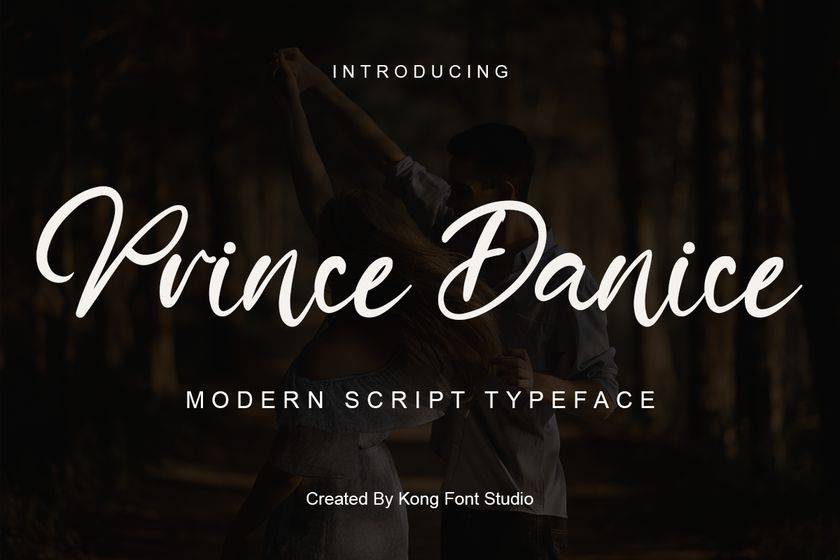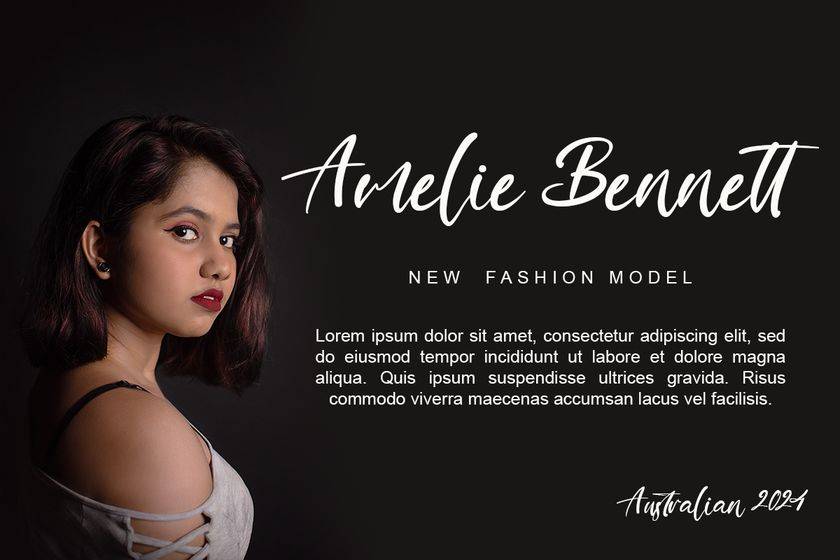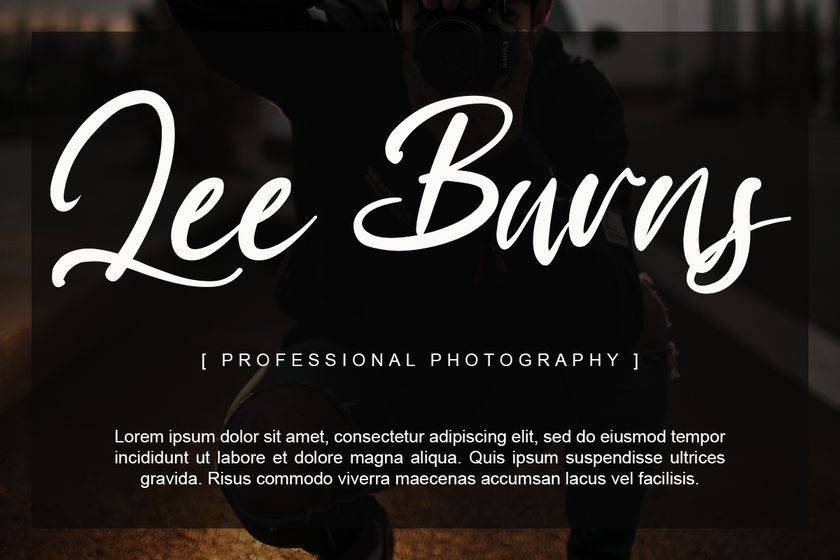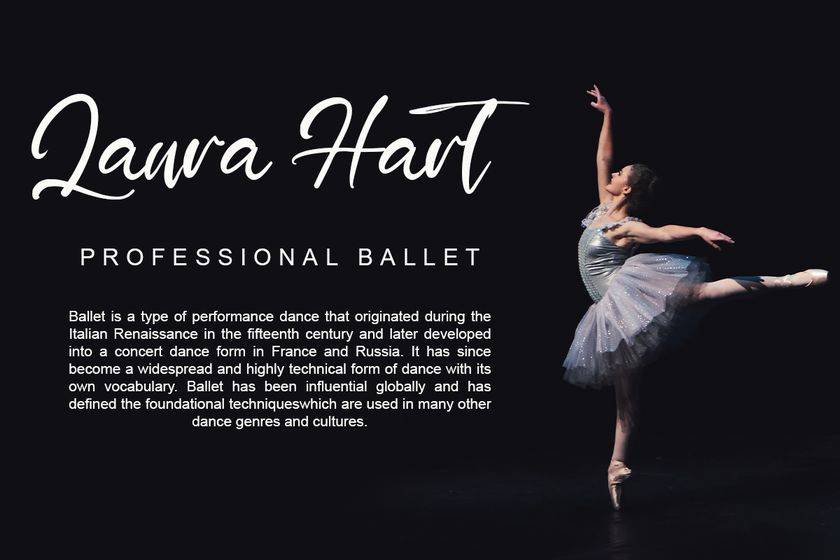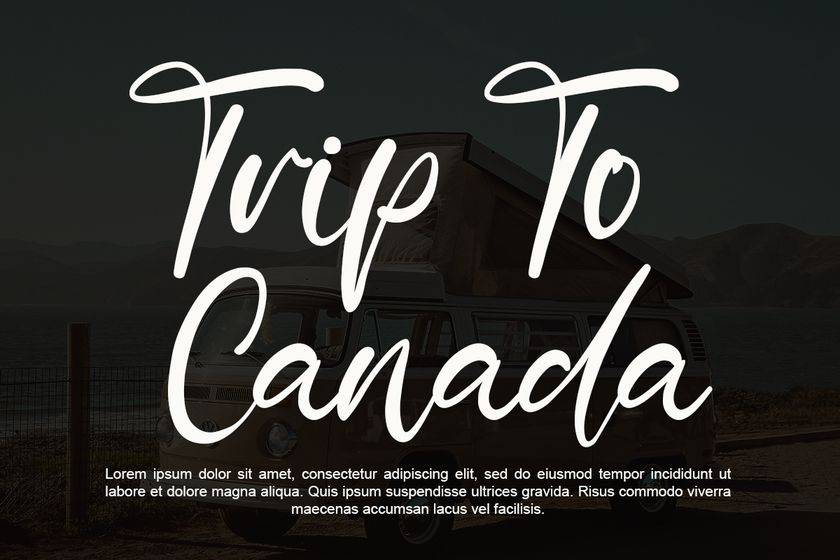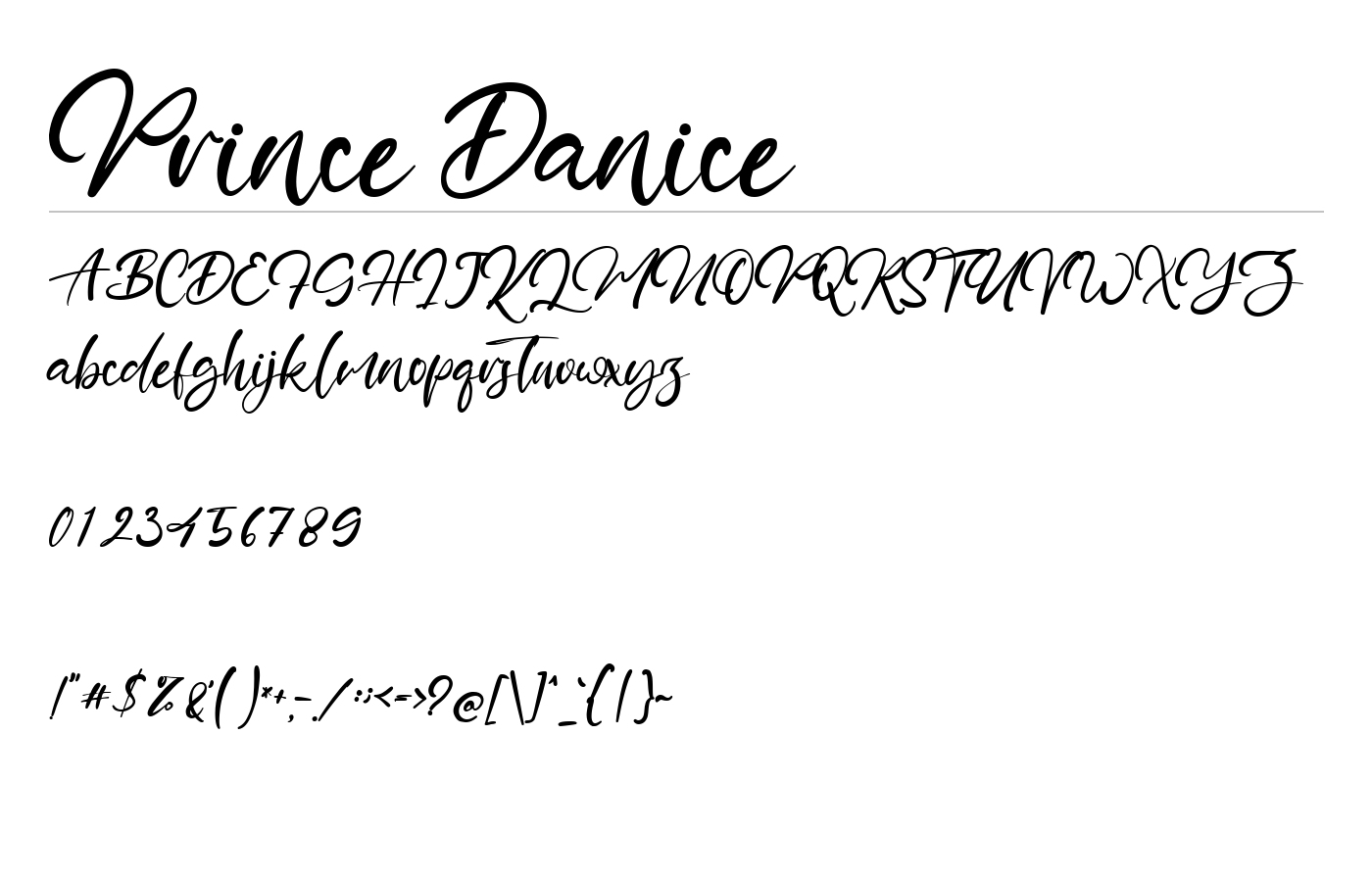
Prince Danice is an elegant and flowing script font with a smooth, handwritten style, featuring moderate stroke contrast and graceful curves. Its refined letterforms exude sophistication and warmth, making it ideal for branding, invitations, and fashion-related designs where a stylish, personal touch is desired. This font works beautifully in headlines and decorative text, adding a chic and approachable feel to any project.
Prince Danice Font
About Prince Danice Font
| Font family | Prince Danice Font |
| Release date | 2021-10-02 |